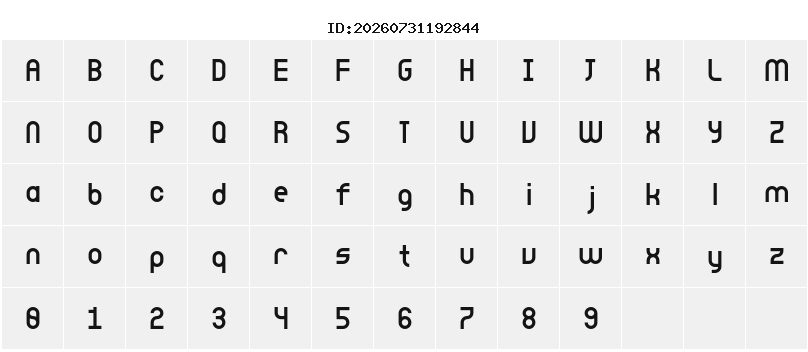
• Font Name: Lee Haus Sans 2
• Designer: Matthew Lee
About Lee Haus Sans 2.ttf
Lee Haus Sans 2.ttf is a modern, elegant sans-serif font designed for ultimate readability and visual harmony. Perfect for branding, headlines, web design, and print materials.